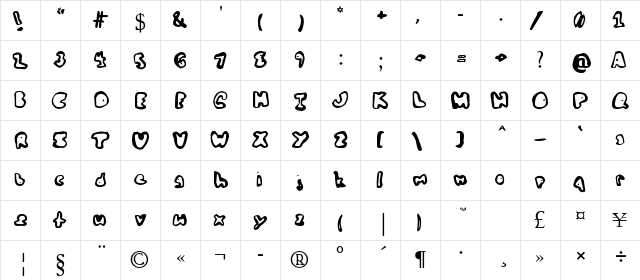
My Bald Friend Fred Regular
Design Context for My Bald Friend Fred Typeface
My Bald Friend Fred is a composed and adaptable typeface that performs quietly and consistently across a wide range of design contexts.